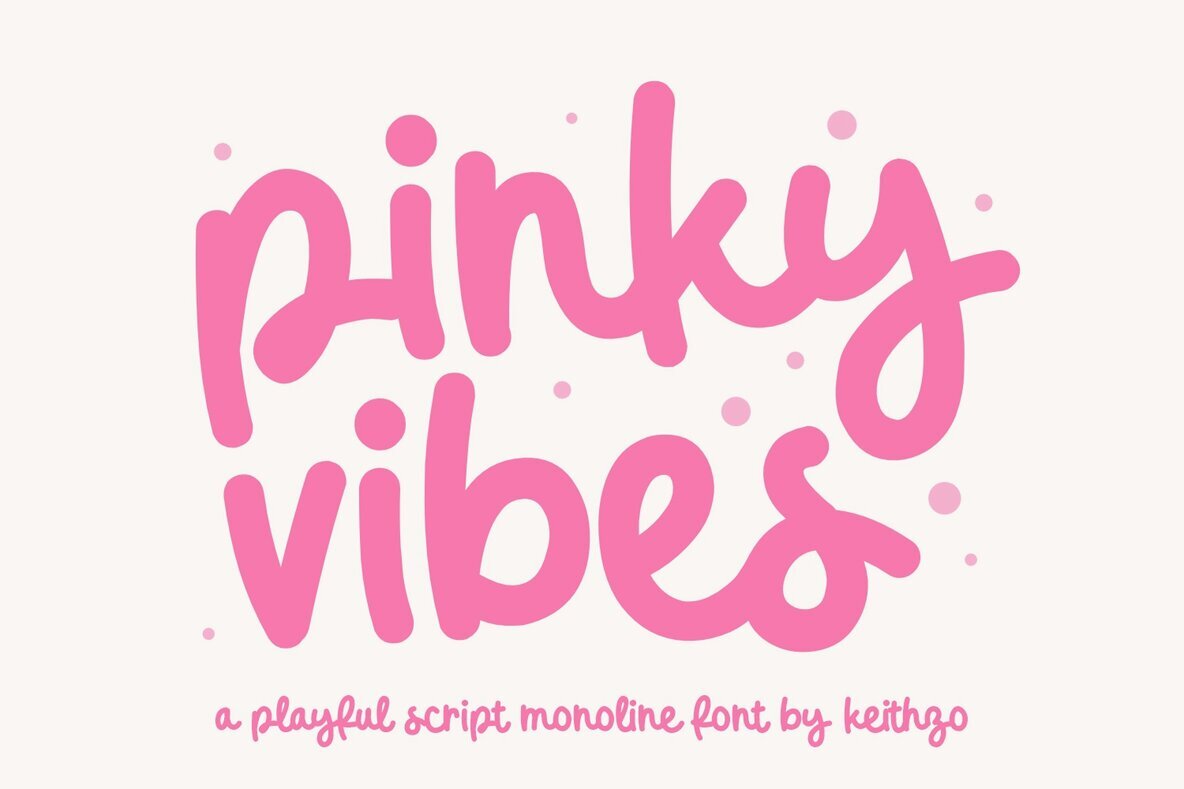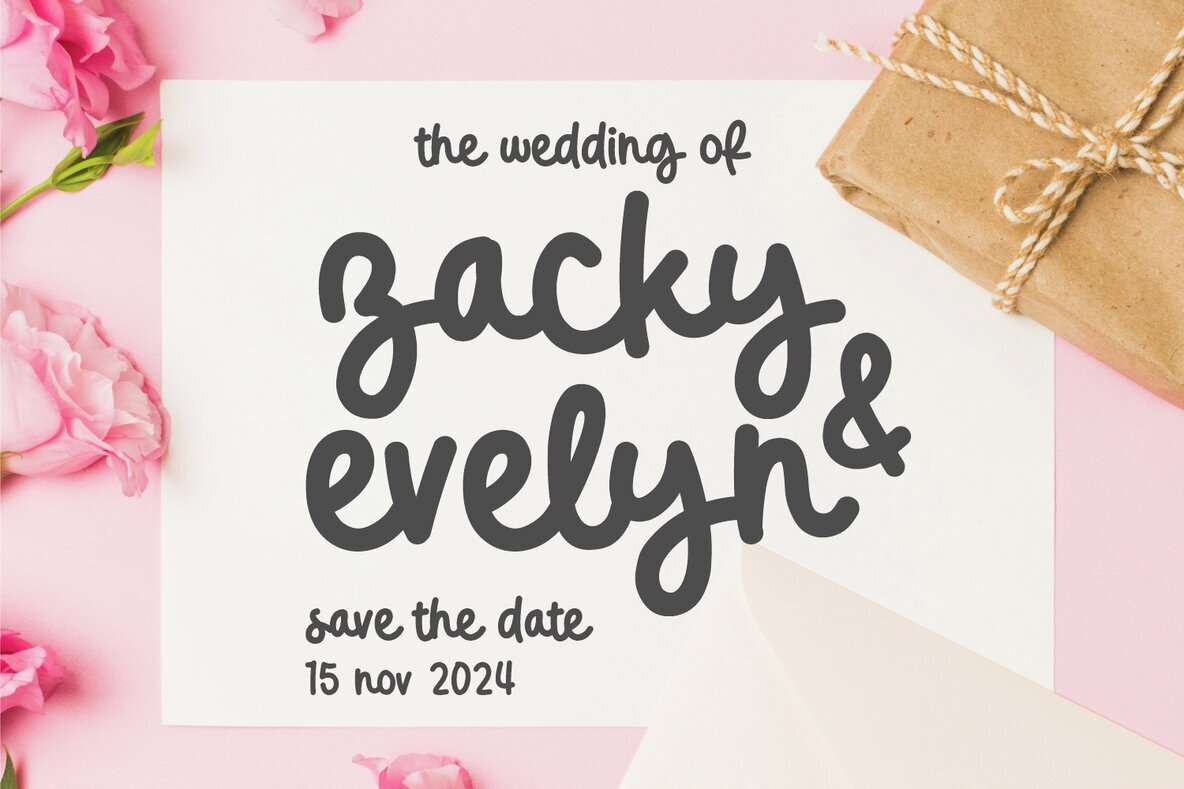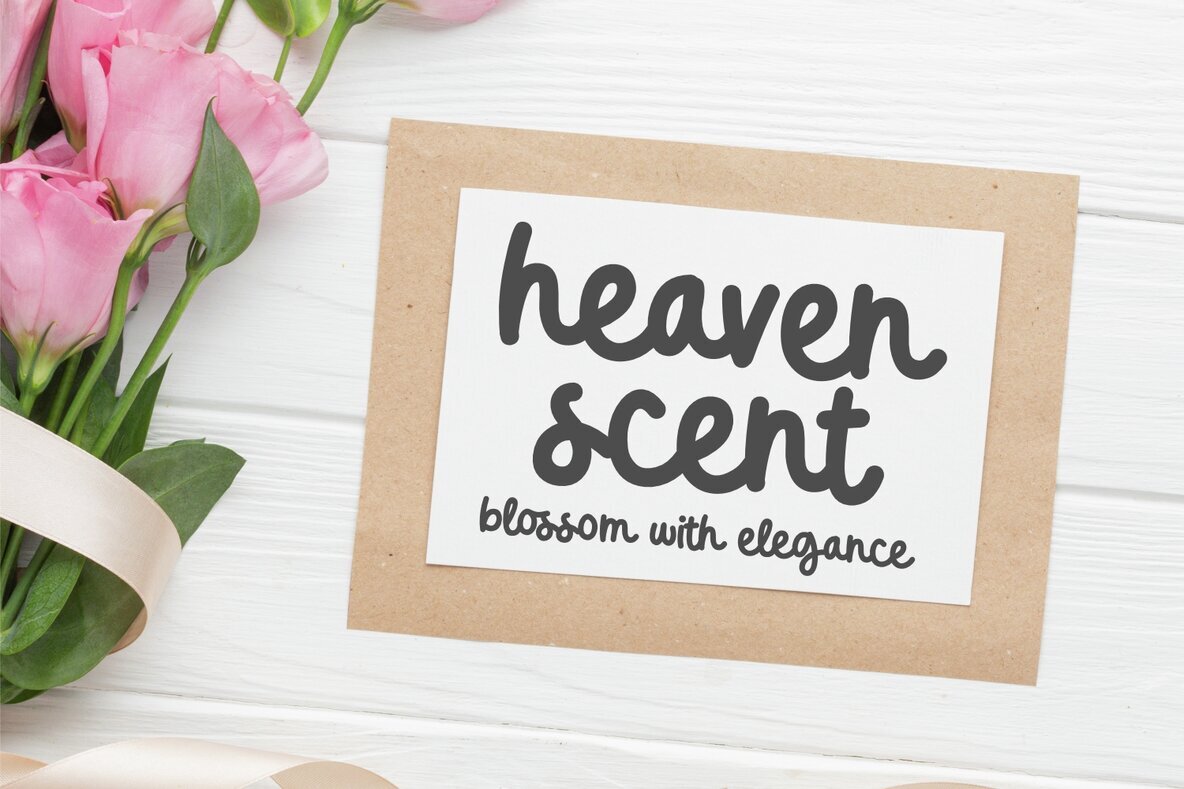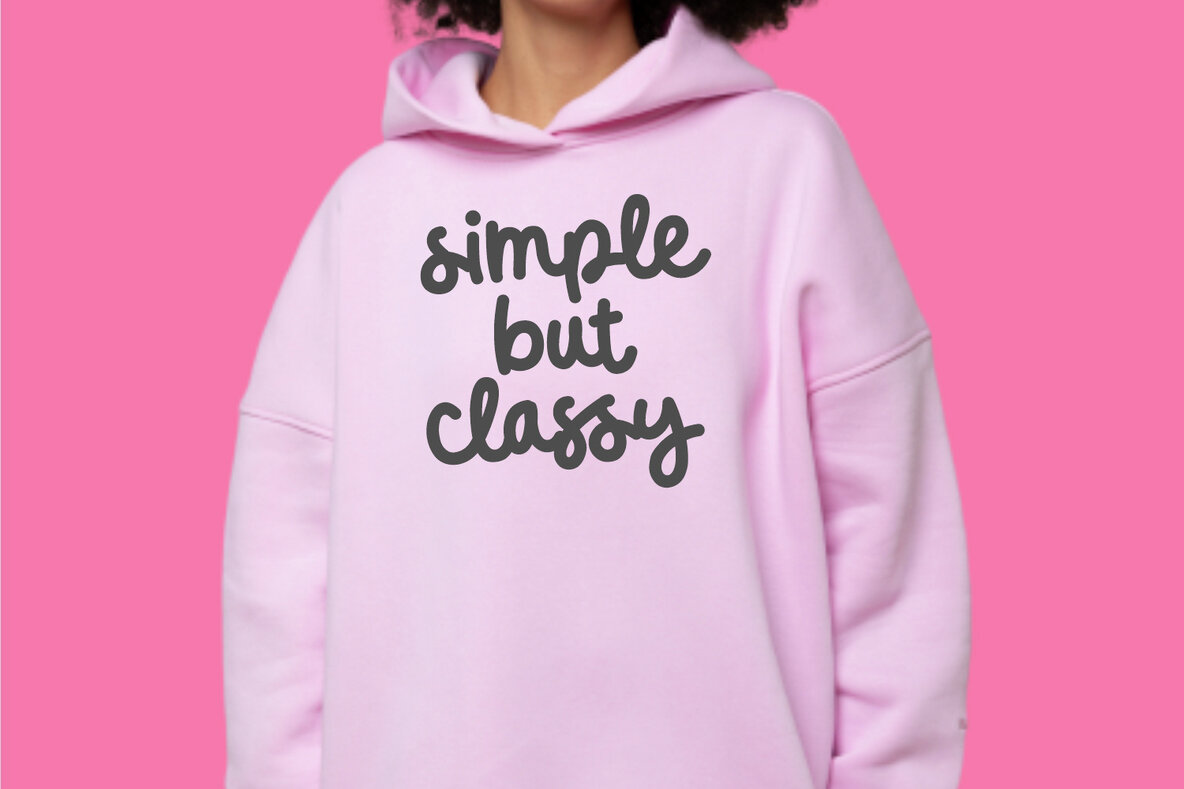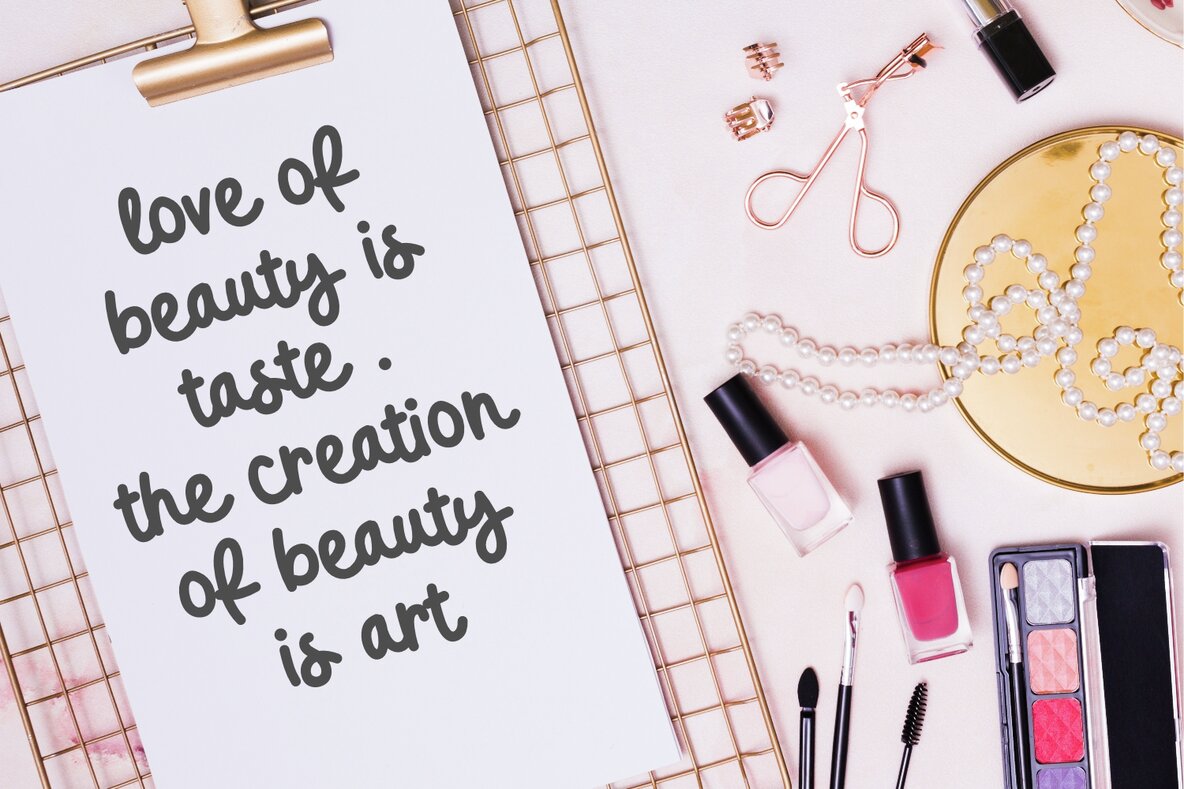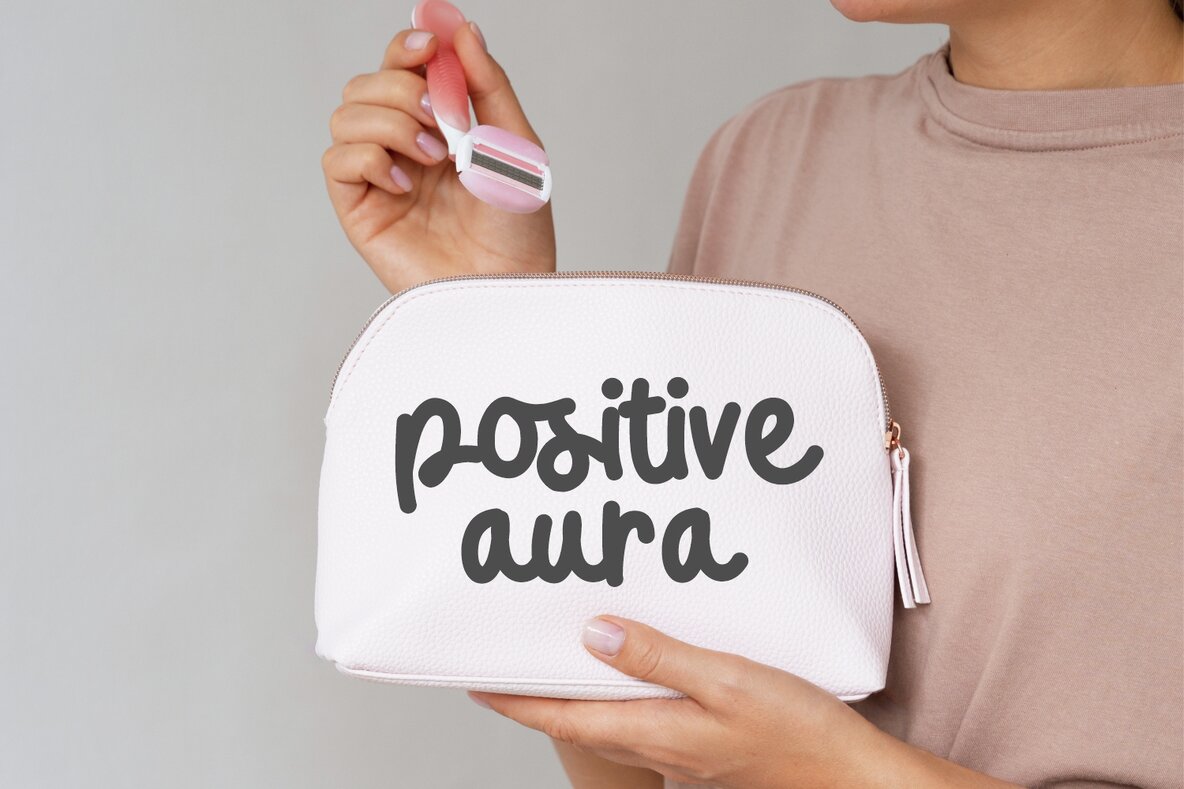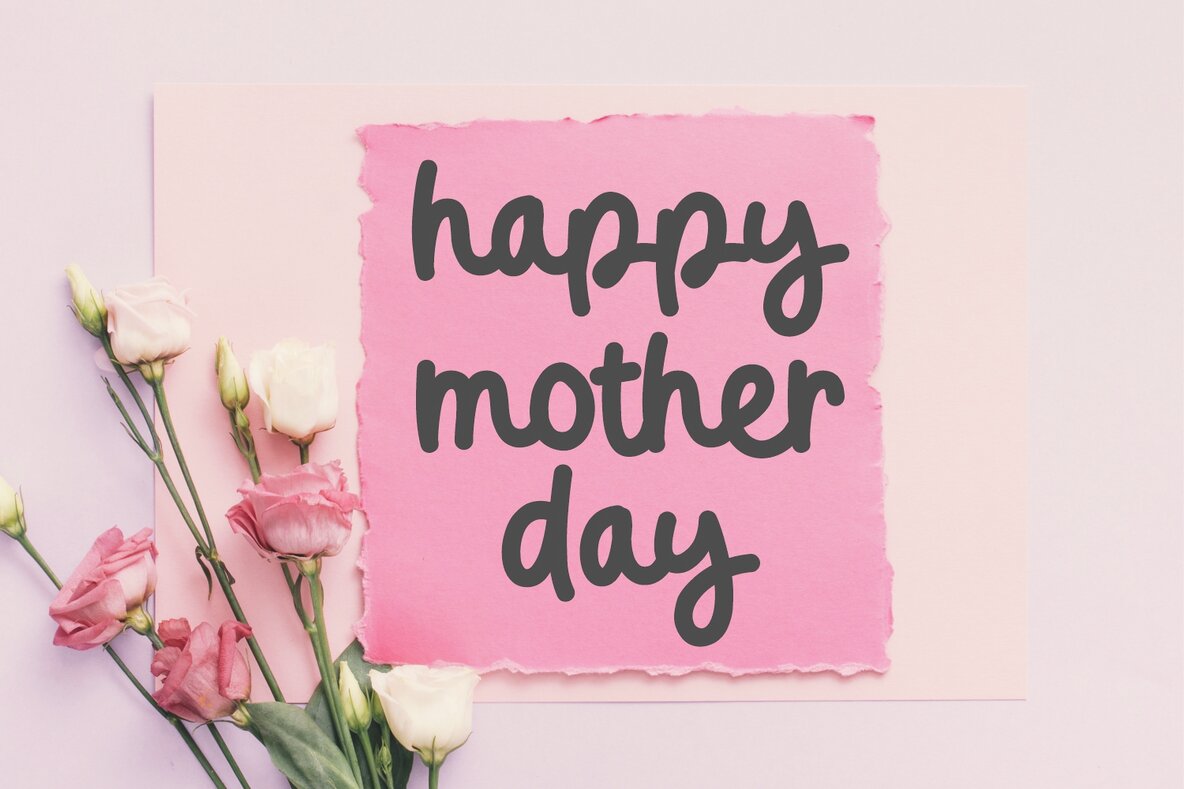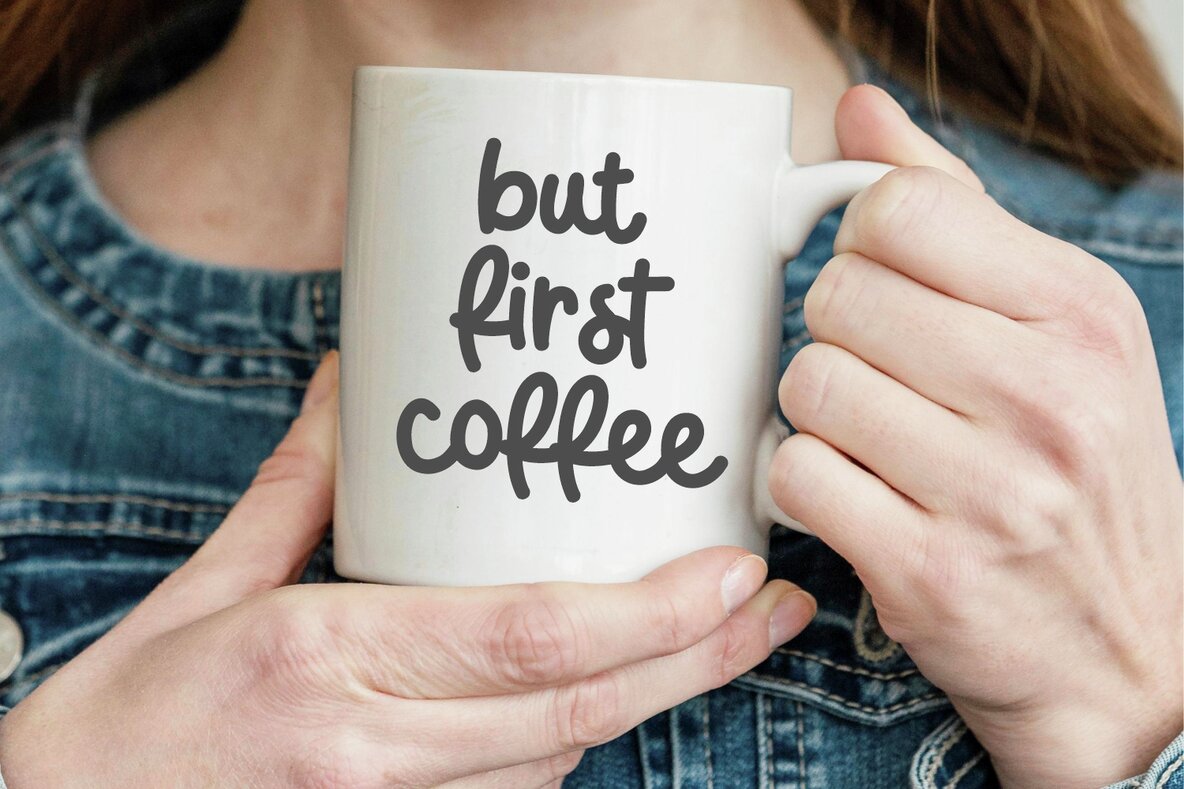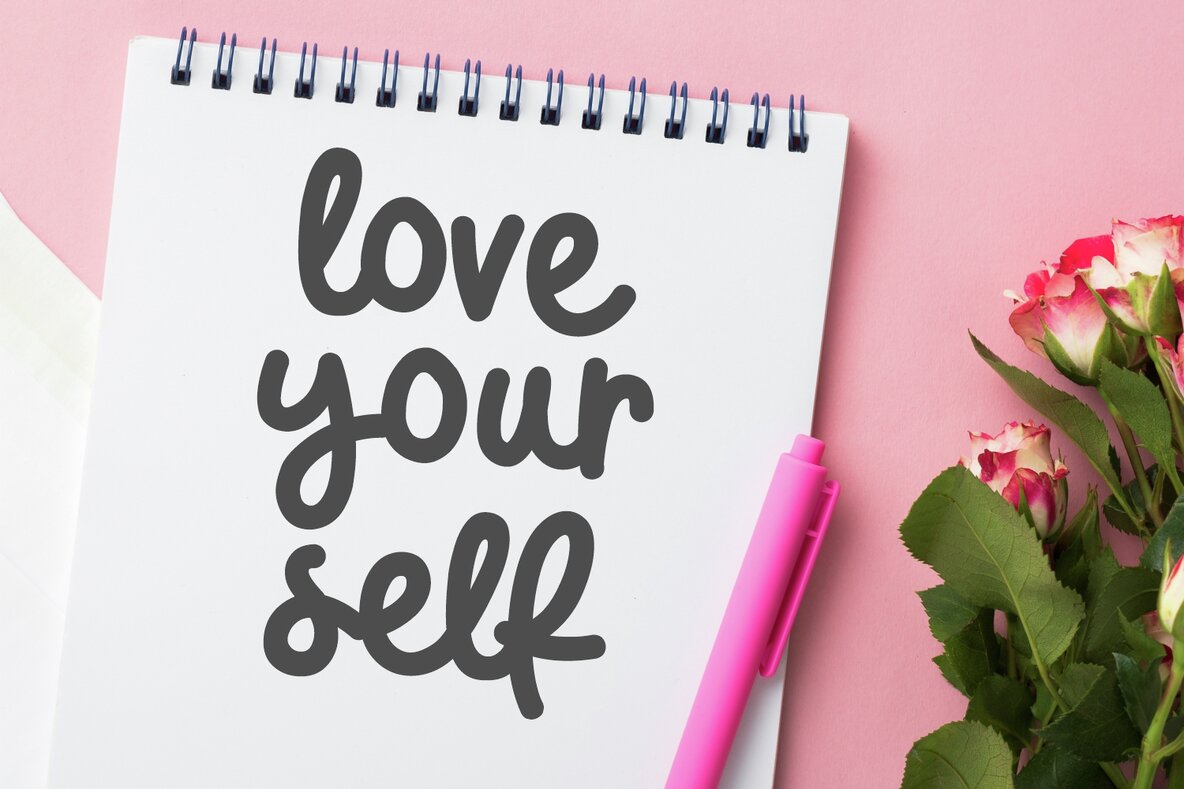
Pinky Vibes Font
Pinky Vibes
Pinky Vibes is a charming monoline script font that embodies joy and playfulness through its every character. Perfect for adding a whimsical touch to a variety of design projects, it shines in wedding invitations, heartfelt greeting cards, and vibrant brand logos. Its delightful charm makes it suitable for unique designs on hoodies, skincare branding, social media content, and even coffee mugs. This font thrives during festive occasions like Valentine's Day or the lively summer season, offering a lively energy that captivates and engages.
With its jubilant aura, Pinky Vibes punctuates designs with a cheerful impression, bringing happiness to each curve and flourish. Its versatility makes it a fantastic choice for any project looking to convey enchantment and delight. Experience the joy and make a lasting impact with Pinky Vibes, a font that transforms ordinary designs into extraordinary expressions of creativity.